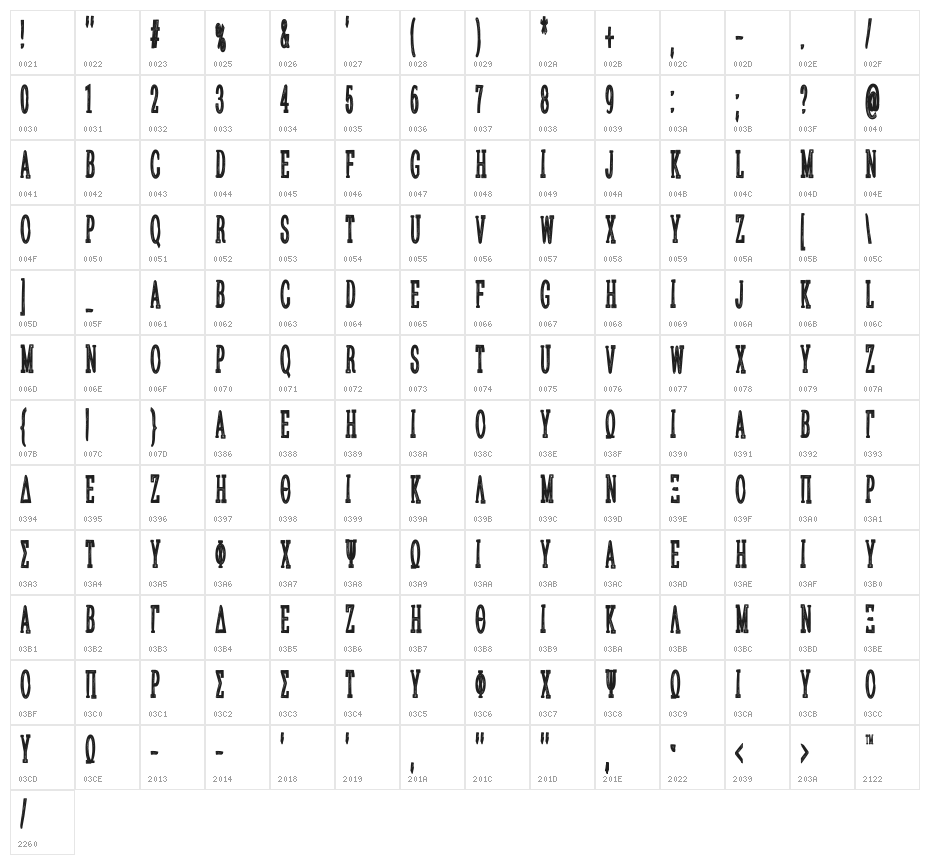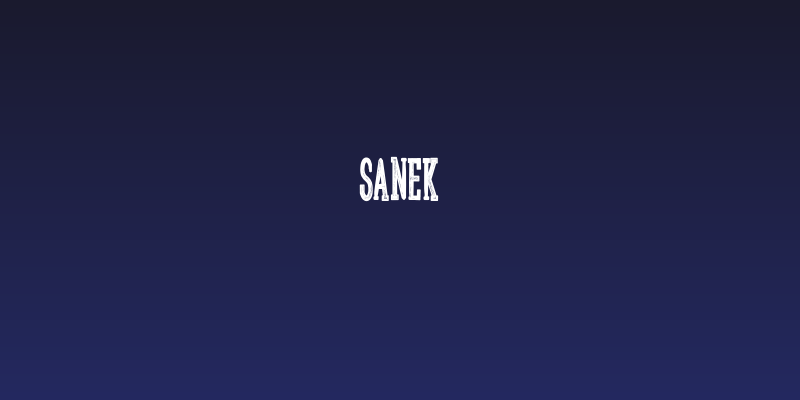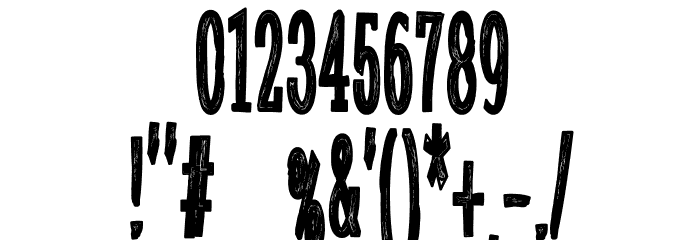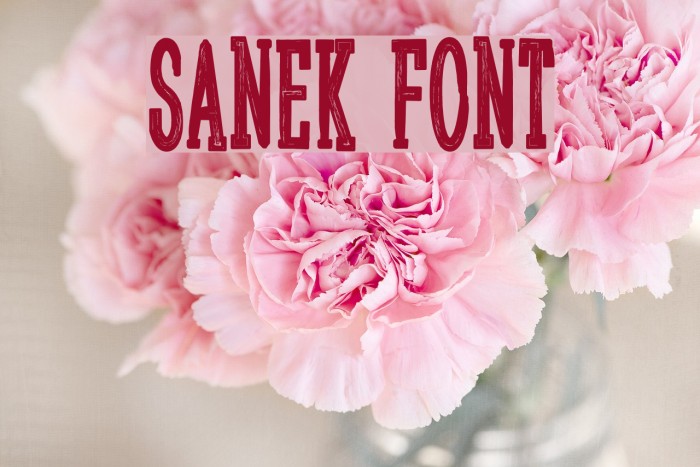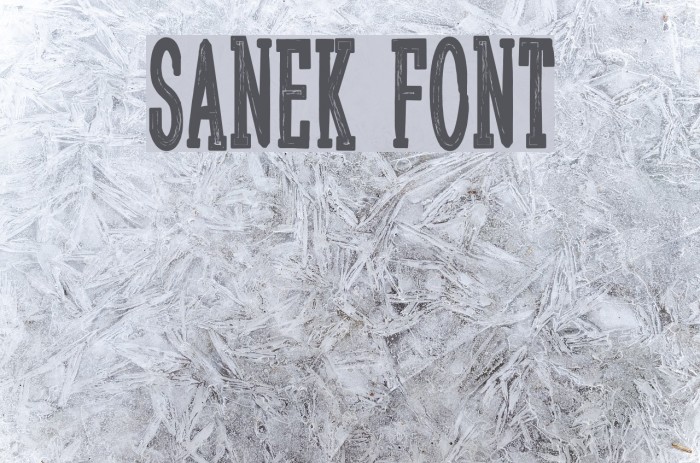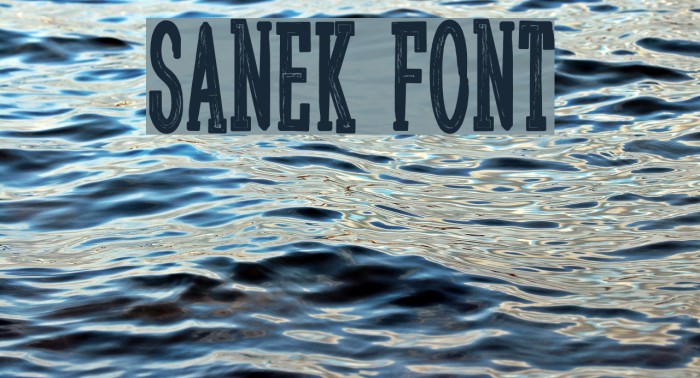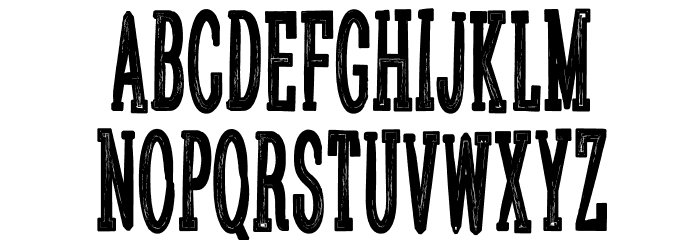
Sanek Font
Sanek Description
This font exhibits a bold and robust slab serif style with a distinct vintage flair. The characters are heavily weighted, providing a strong presence on any medium. Each letter features a textured, distressed appearance, adding a rustic and worn effect that enhances its retro aesthetic. The uppercase and lowercase letters maintain consistent proportions, while the numbers and special characters follow the same design principles, ensuring uniformity across all glyphs. The font's boldness and unique texture make it ideal for creating eye-catching headlines and designs that require a touch of nostalgia.
| Overall Style | Vintage |
| Proposed Projects | Ideal for vintage-themed posters, logos, branding, and packaging designs. |